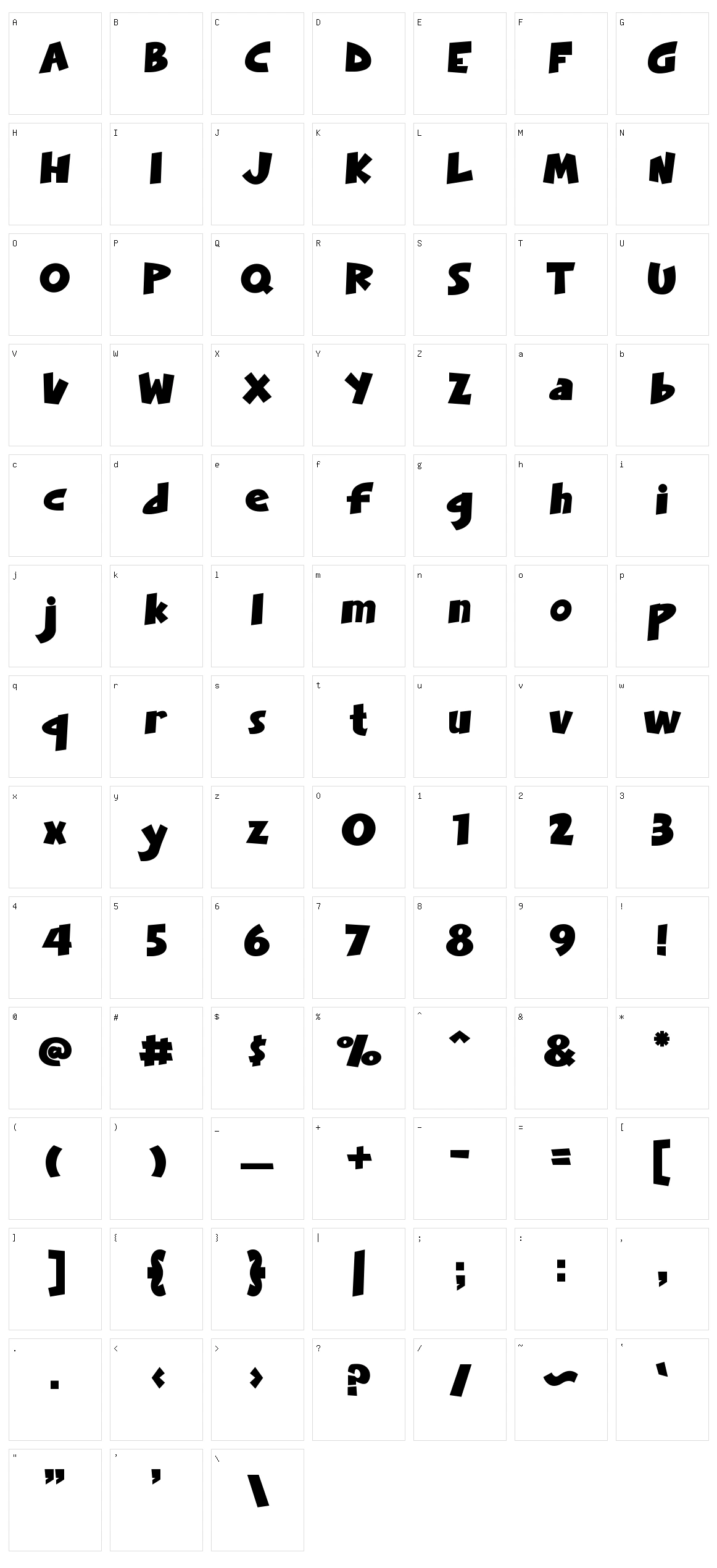
The free font Comical Sound is carefully designed by Tokopress, showcasing a thoughtful balance of creativity and usability and falls under the Cartoon font style. When you download the ZIP file, it contains only 10.57 KB of font files, making it lightweight and quick to download. Please review the license details below to understand permitted usage and distribution rights. If license information is not available, we recommend using this font for personal projects only or contacting the author directly for commercial usage permissions.